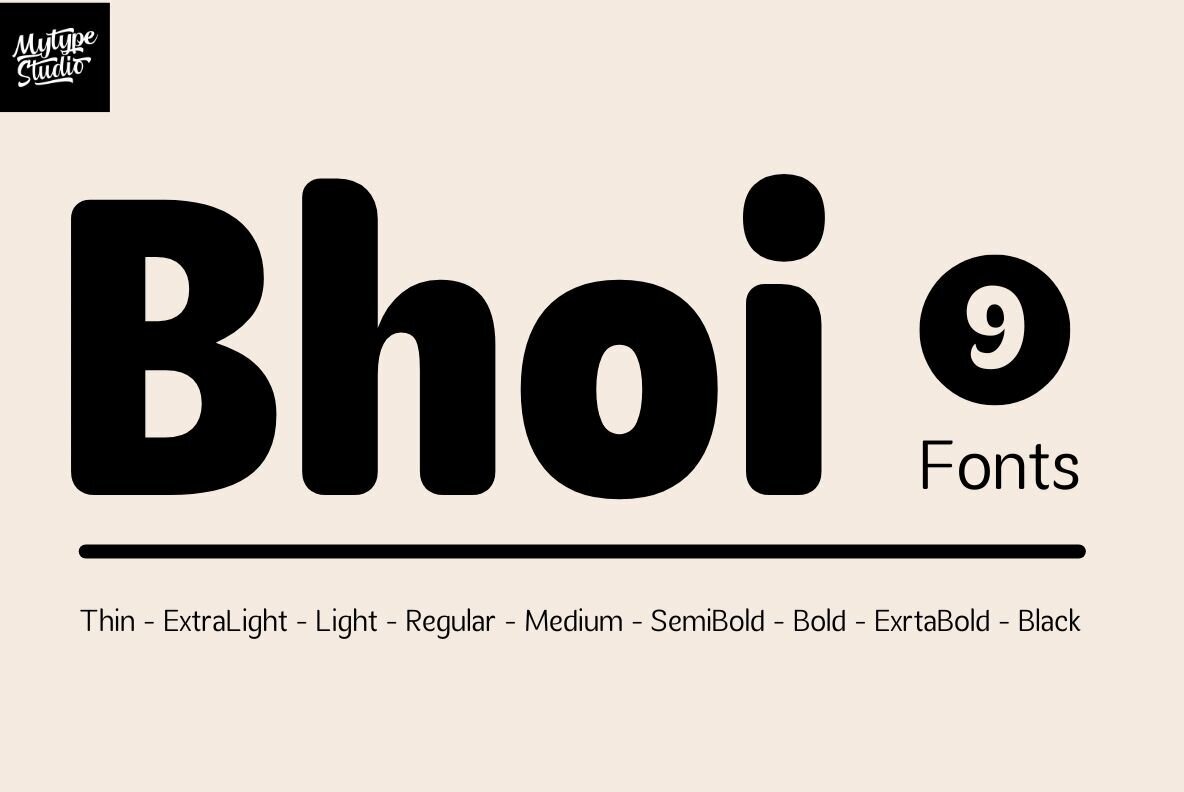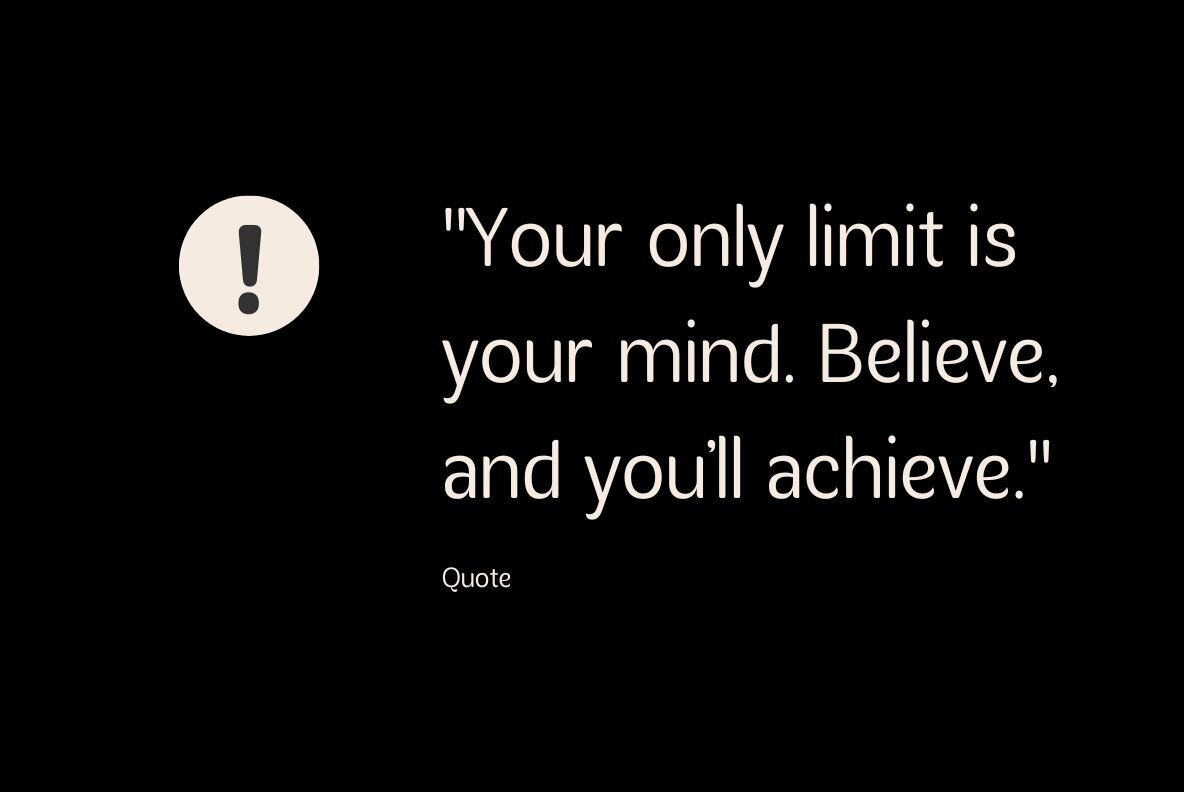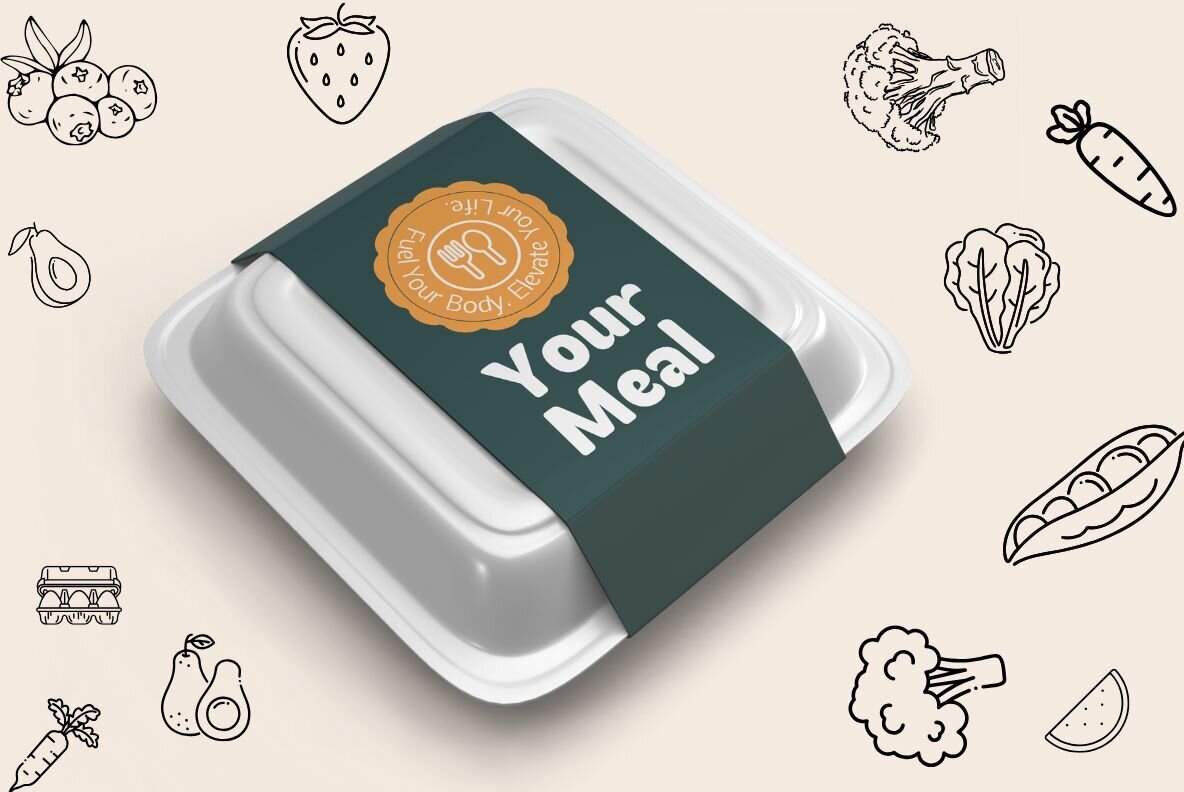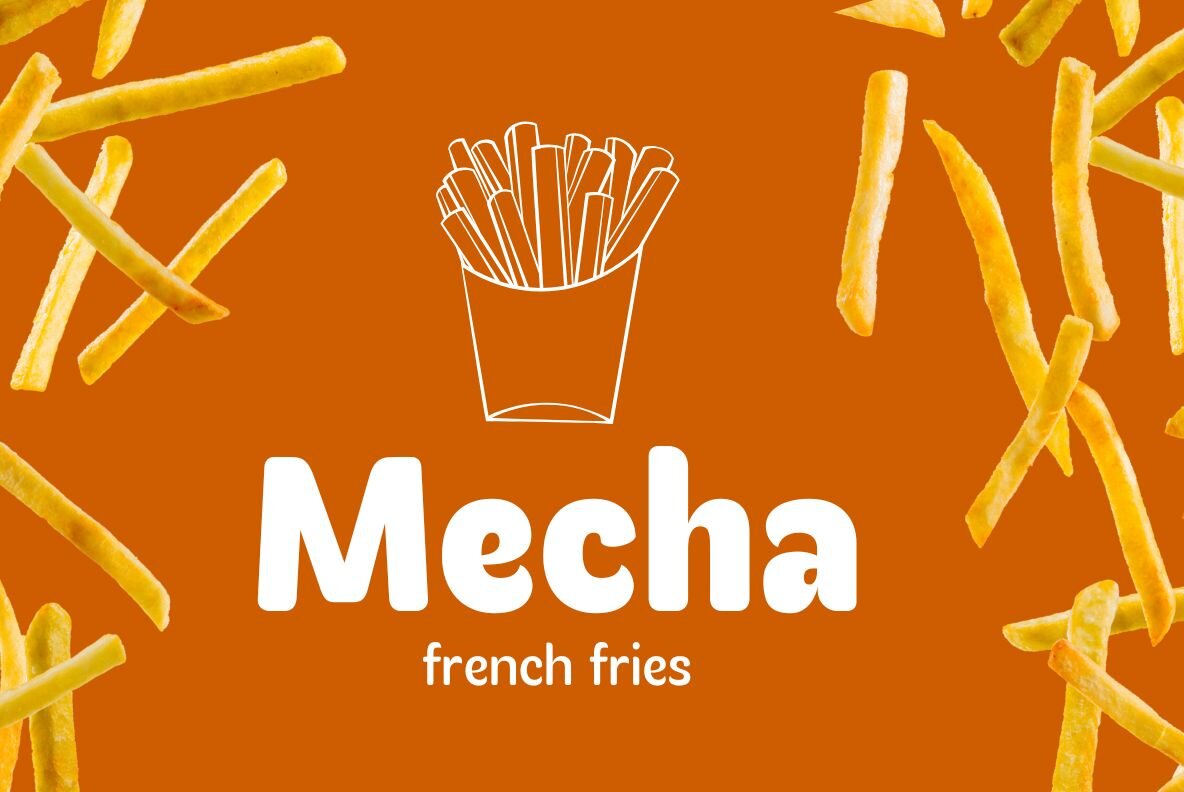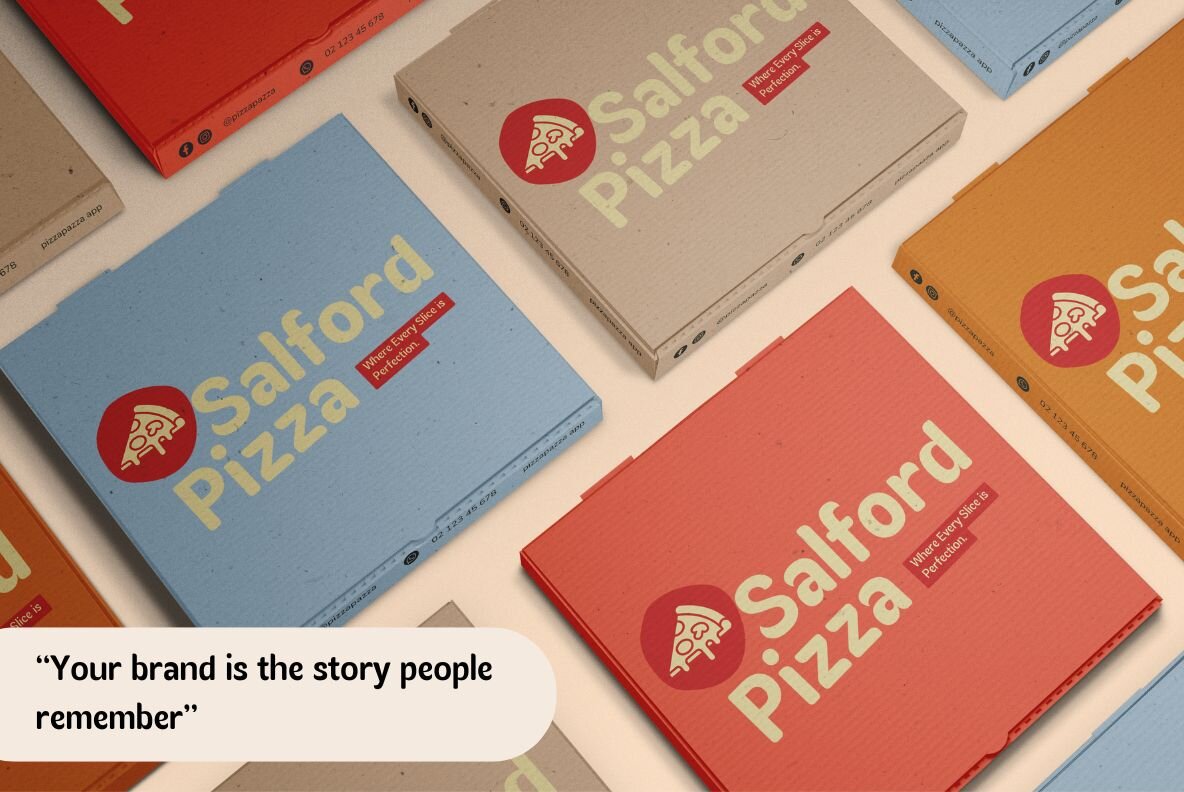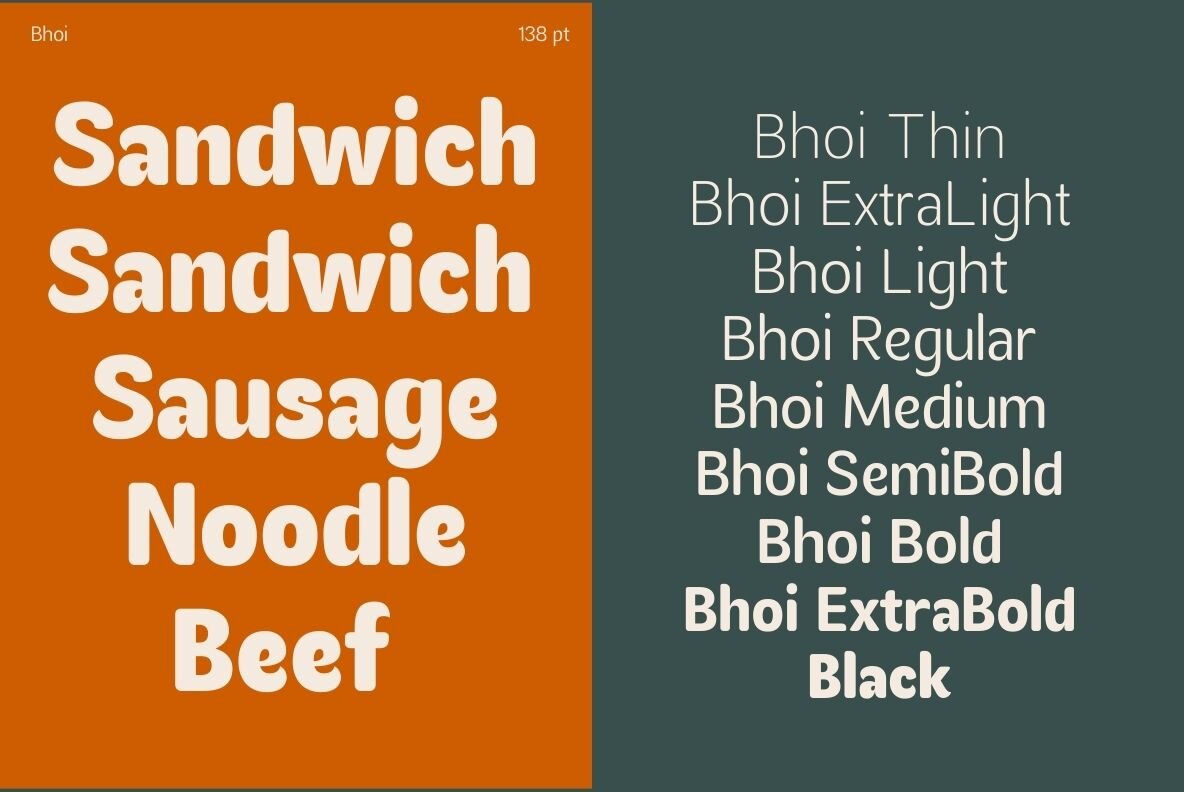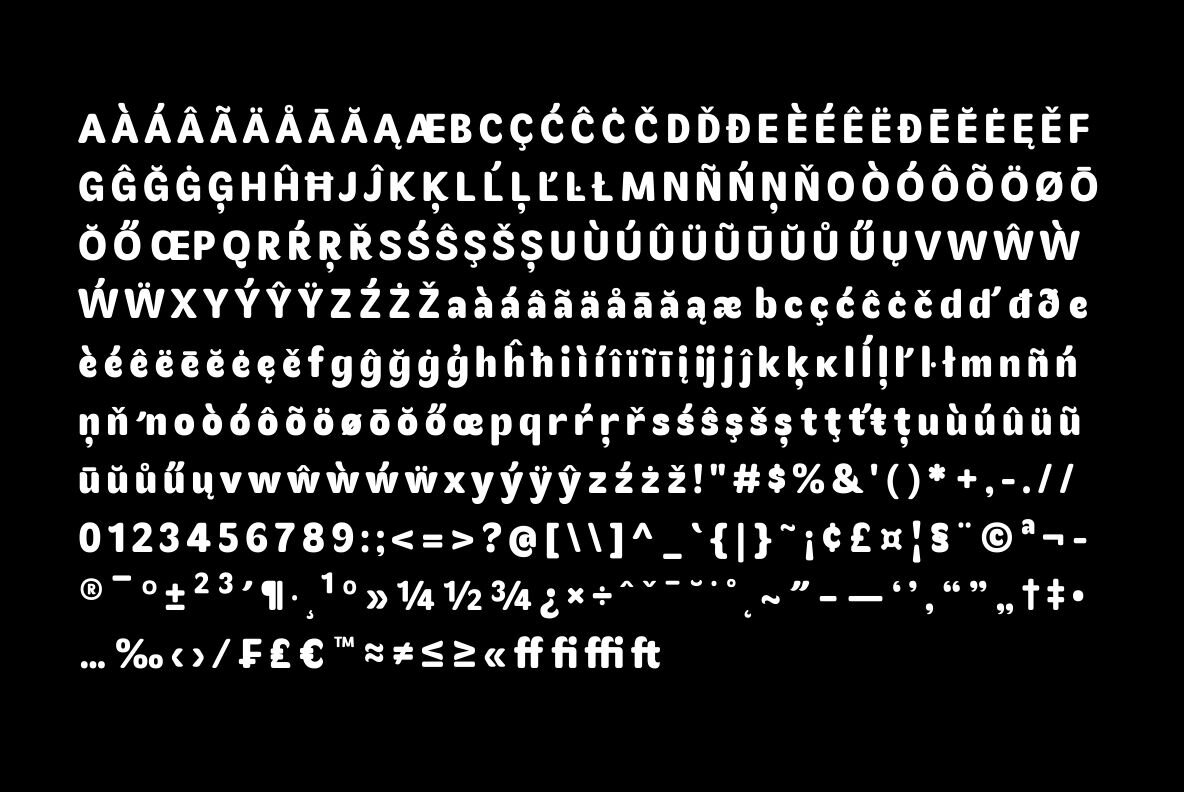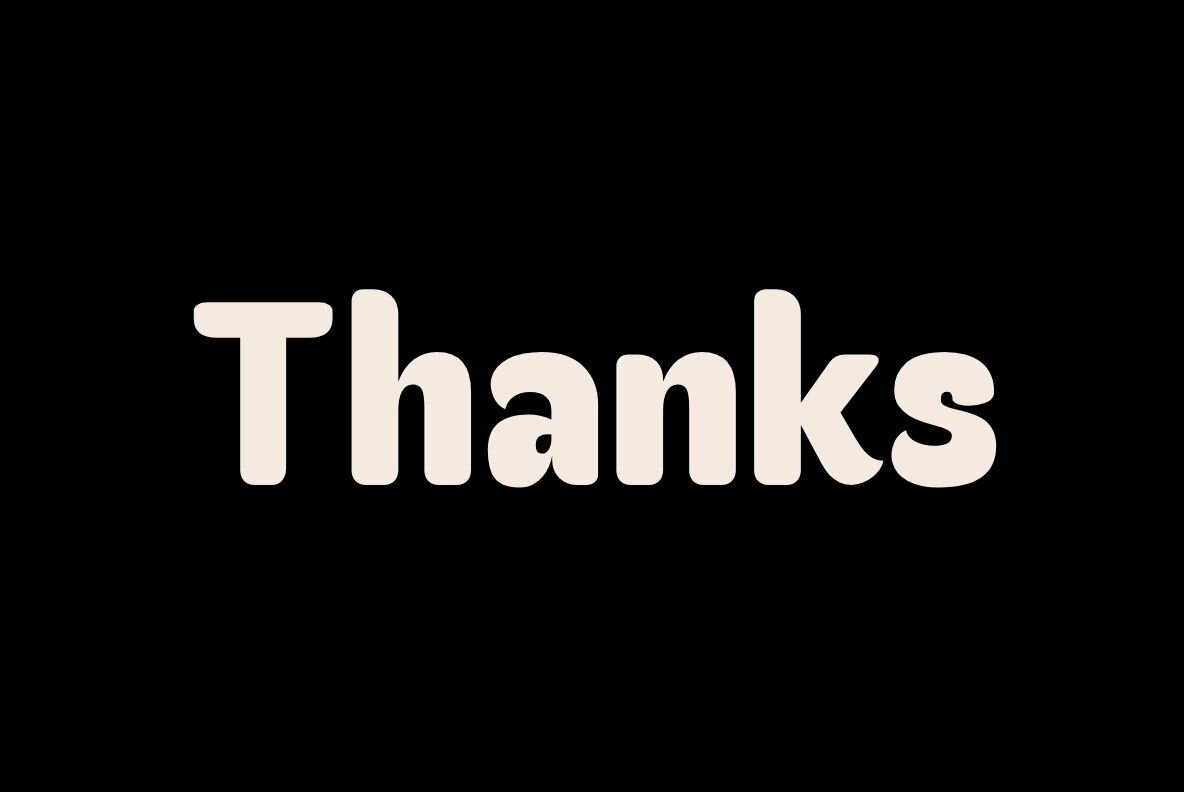
Bhoi Font
Bhoi is a playful yet professional rounded sans-serif font ideal for both striking headlines and smooth body copy. Offering nine weights from Thin to Black, it provides exceptional versatility for any creative endeavor. Whether you're working on branding, packaging, editorial layouts, or social media graphics, Bhoi’s friendly curves and clean lines ensure your text commands attention seamlessly.
Engineered for approachability, modern appeal, and high legibility, Bhoi is particularly well-suited for food branding, children’s books, startups, and lifestyle designs. Its soft edges and consistent proportions infuse your typography with warmth and character.
- 9 Weights (Thin to Black)
- Smooth, Rounded Shapes
- High Readability & Versatility
- Ideal for Branding, Packaging, & Digital Use
Experience the charm of Bhoi and add distinctive personality to your designs.